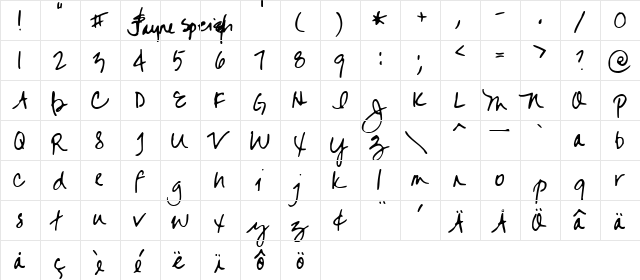
Jayne hand
| Foundry | Font Garden |
| Designer | Ellinor Rapp |
Design Context for Jayne Typeface
Jayne brings a calligraphic fluidity to the page — its connecting strokes and expressive curves give it an unmistakably human quality.